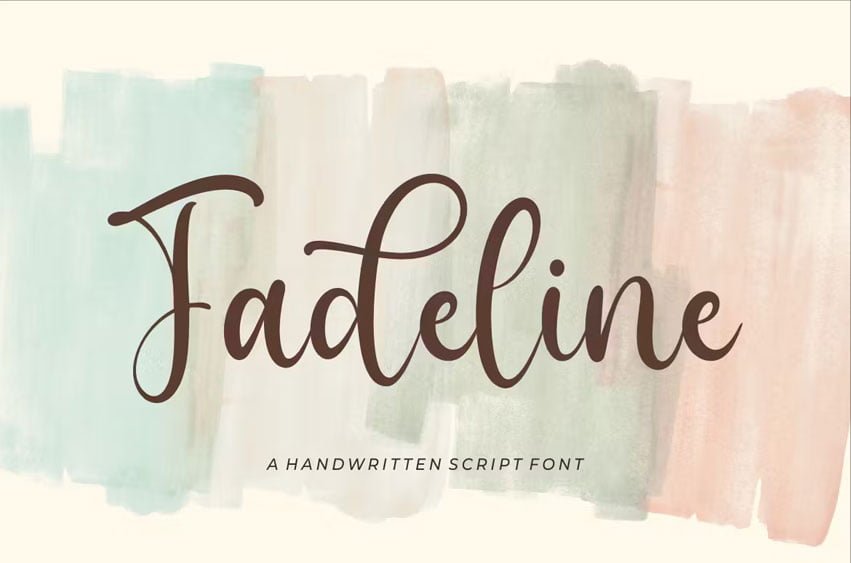
Fadeline Font is a stylish script font suitable for your design project needs, such as; wedding themes, Valentine’s themes, social media posts, quotes, overlays on images, tagline logos, posters, print needs, website banners, and more.
- A set of uppercase and lowercase glyphs
- Number, symbol, and punctuation
- Some swashes and ligatures